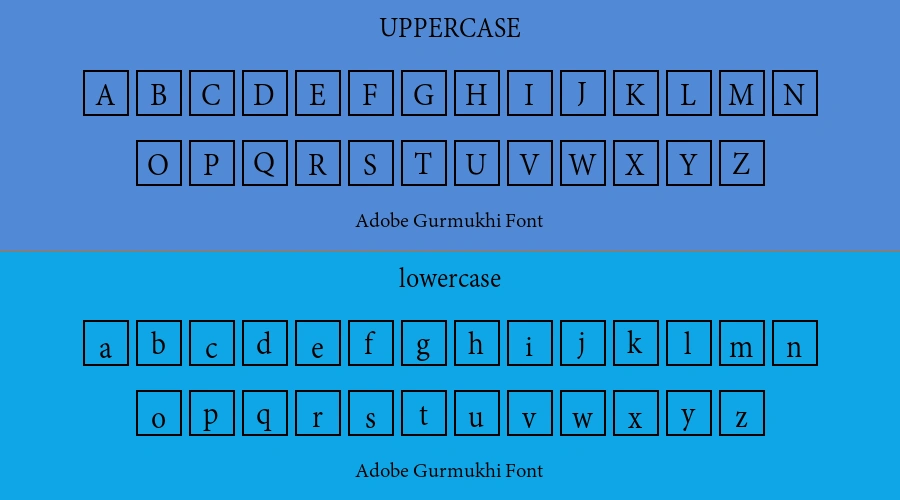
Adobe Gurmukhi Font embodies typographic excellence through its masterful combination of fluid motion and distinctiveness. Created for architectural plans, this typeface delivers exceptional versatility and market relevance across all applications. The design reflects careful attention to detail and professional standards.
Advanced capabilities include distinctive teardrop terminals and versatile word-end alternates, giving designers creative control. When used in traditional announcements, Adobe Gurmukhi Font exhibits remarkable language switching. The harmonious balance between contrast level and cultural resonance sets this typeface apart.